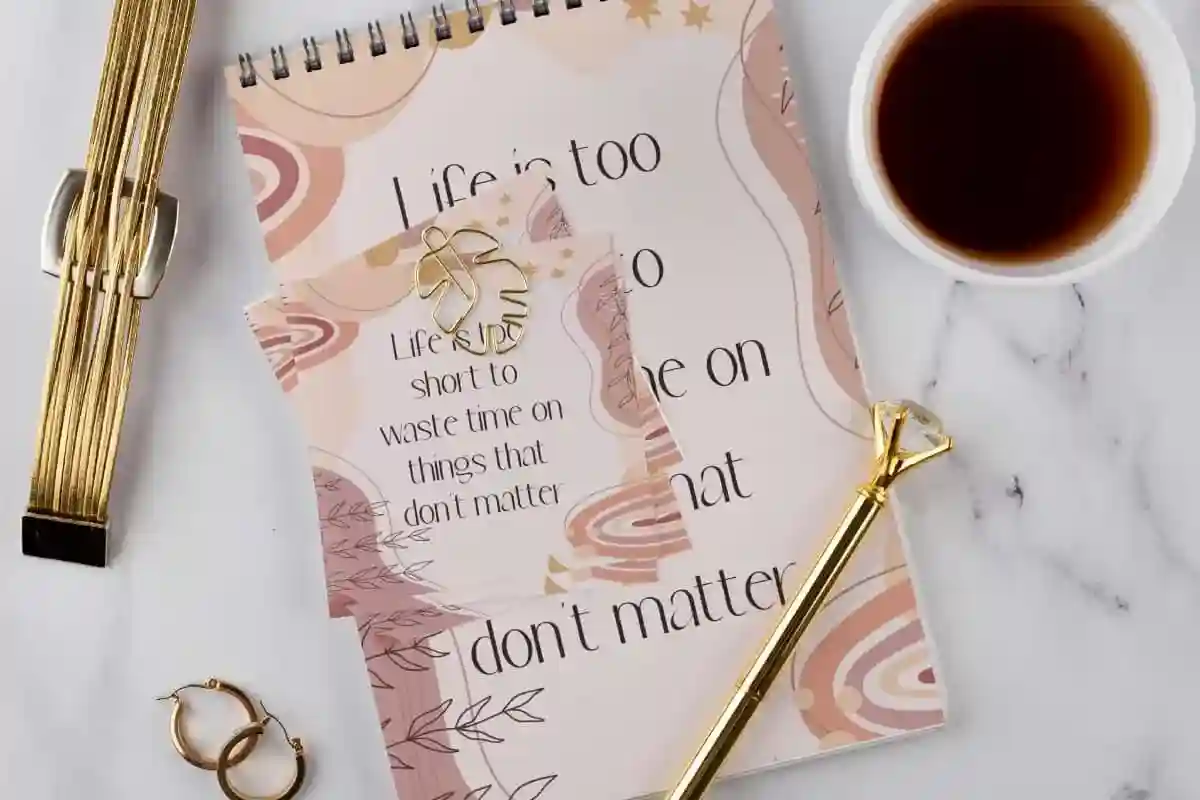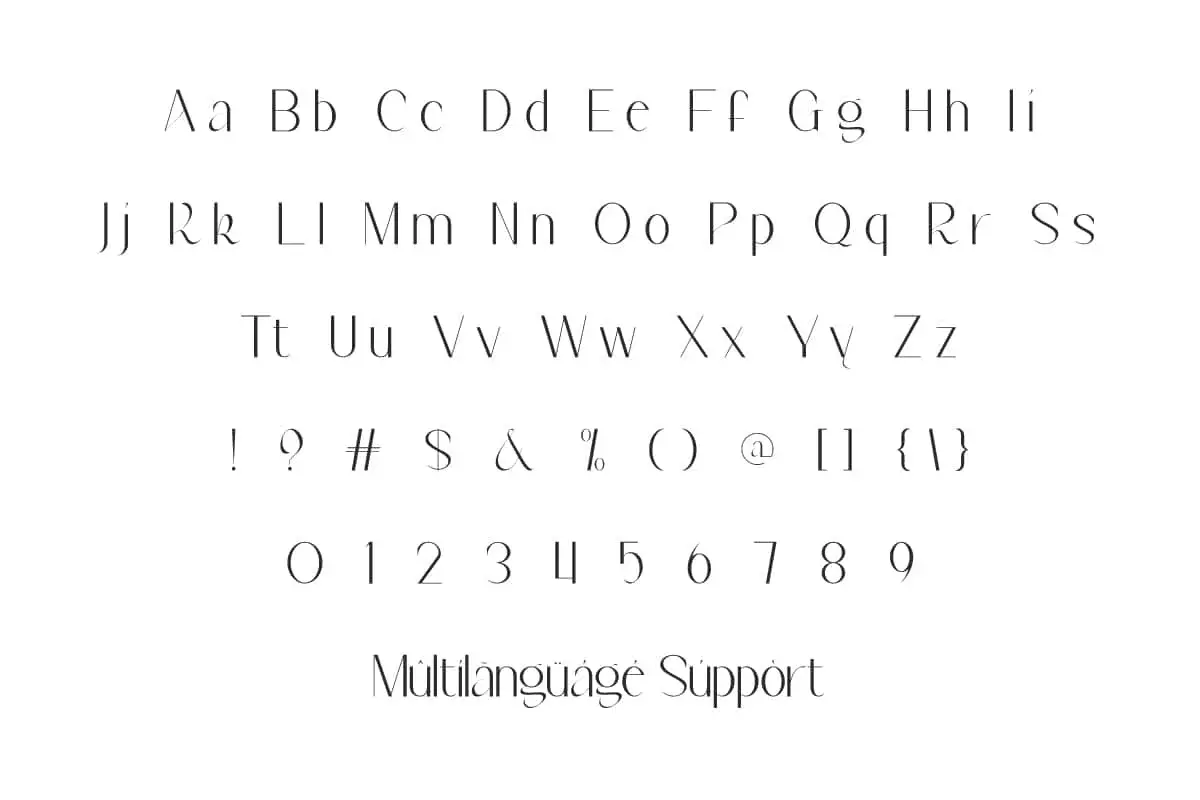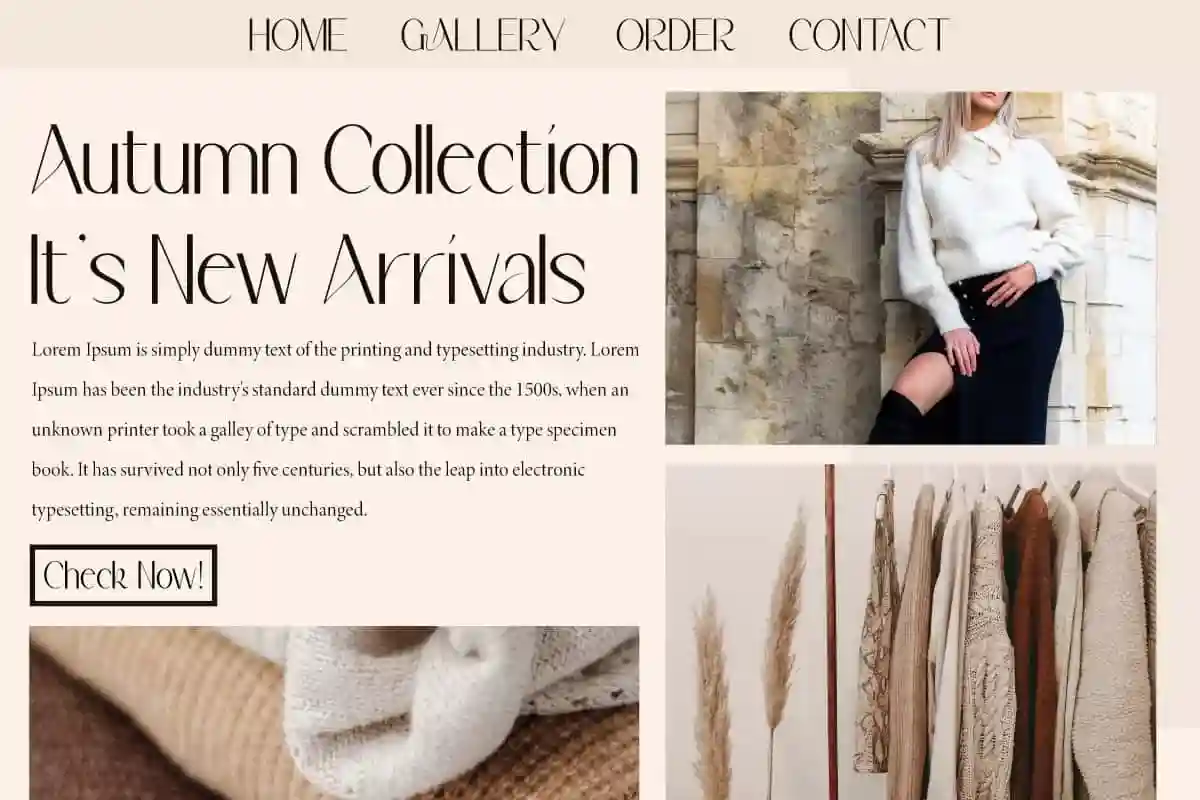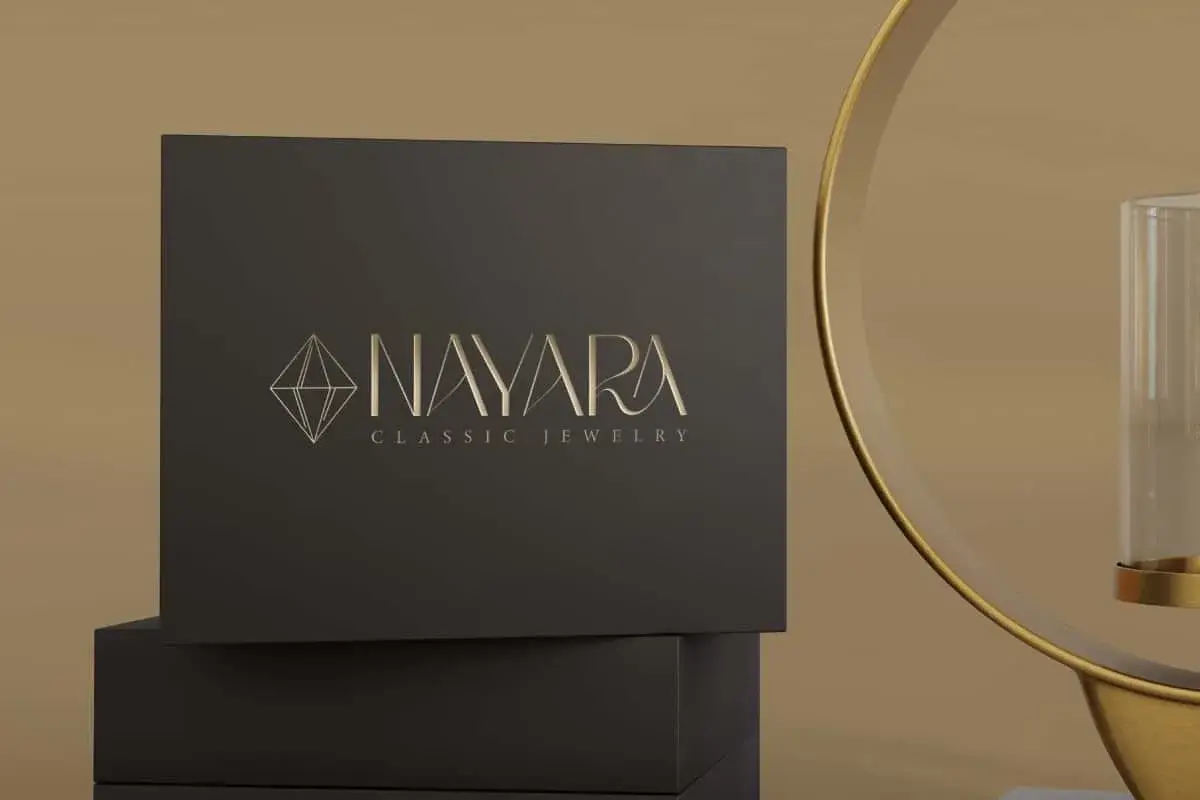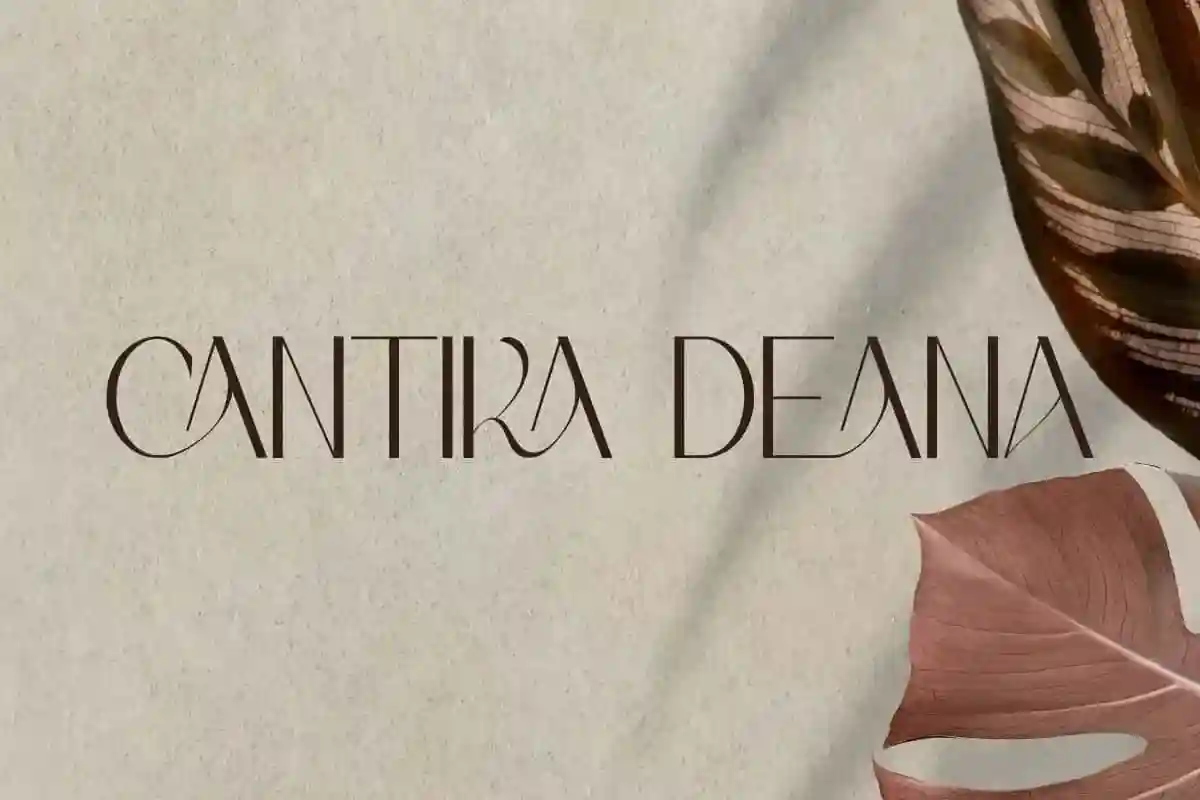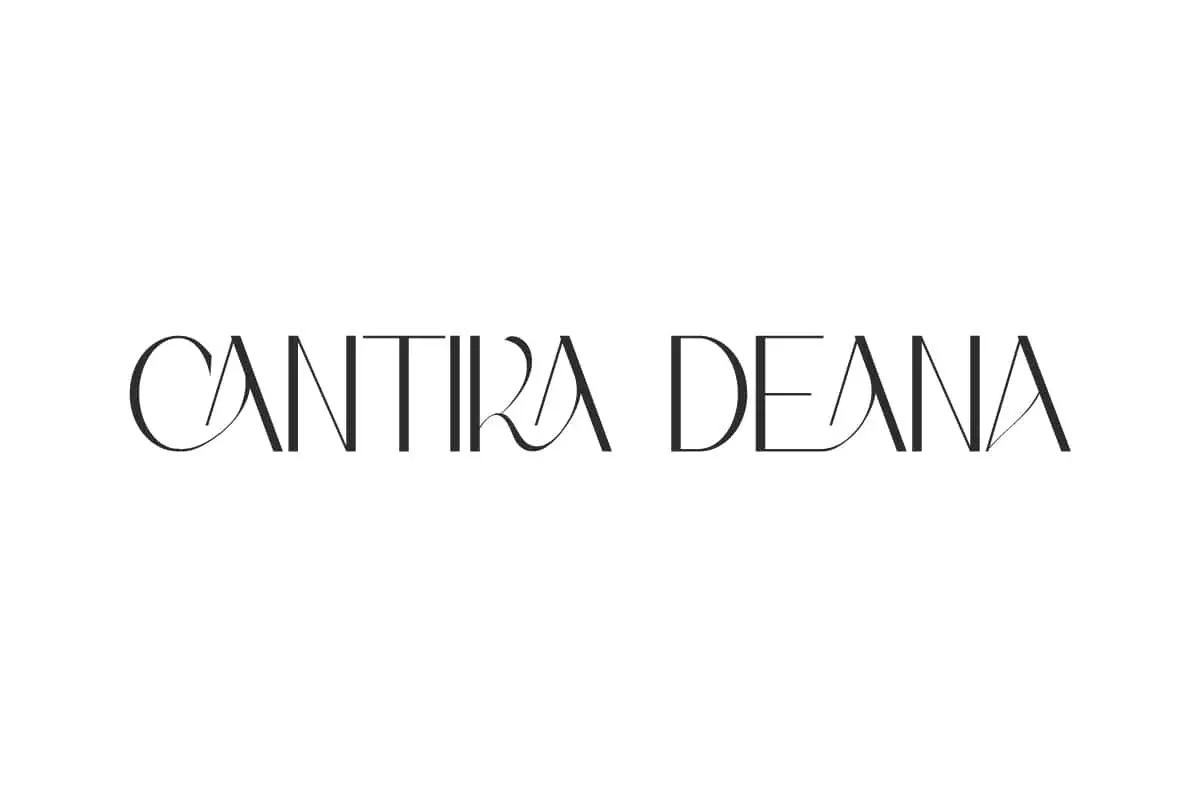
Cantika Deana Font is a modern sans serif display font that has elegant impression with unique and attractive ligatures. It will be perfect for brands, etc.
Cantika Deana Font is an elegant sans serif display font with stunning visual elegance and cleanliness. Specifically designed to create classy lifestyle designs and this font has standard ligatures that are no less beautiful. Great for event organizer, fashion, graphic design, jewelry, perfume brand, photography, real estate, vlogger lifestyle, and much more.
Cantika Deana Font includes full set of Uppercase and Lowercase Basic Characters, Numbers, Punctuation, Symbols and Ligature. This typeface is timeless and should not be missed in a collection of modern and minimalist sans serif fonts. It is suitable for combining with any basic font to create an innovative blend of mixed fonts. Great for blogs, embossed design, greeting cards, headers, invitations, labels, logos, mockup, quotes, stationery, templates, title, websites, and much more.